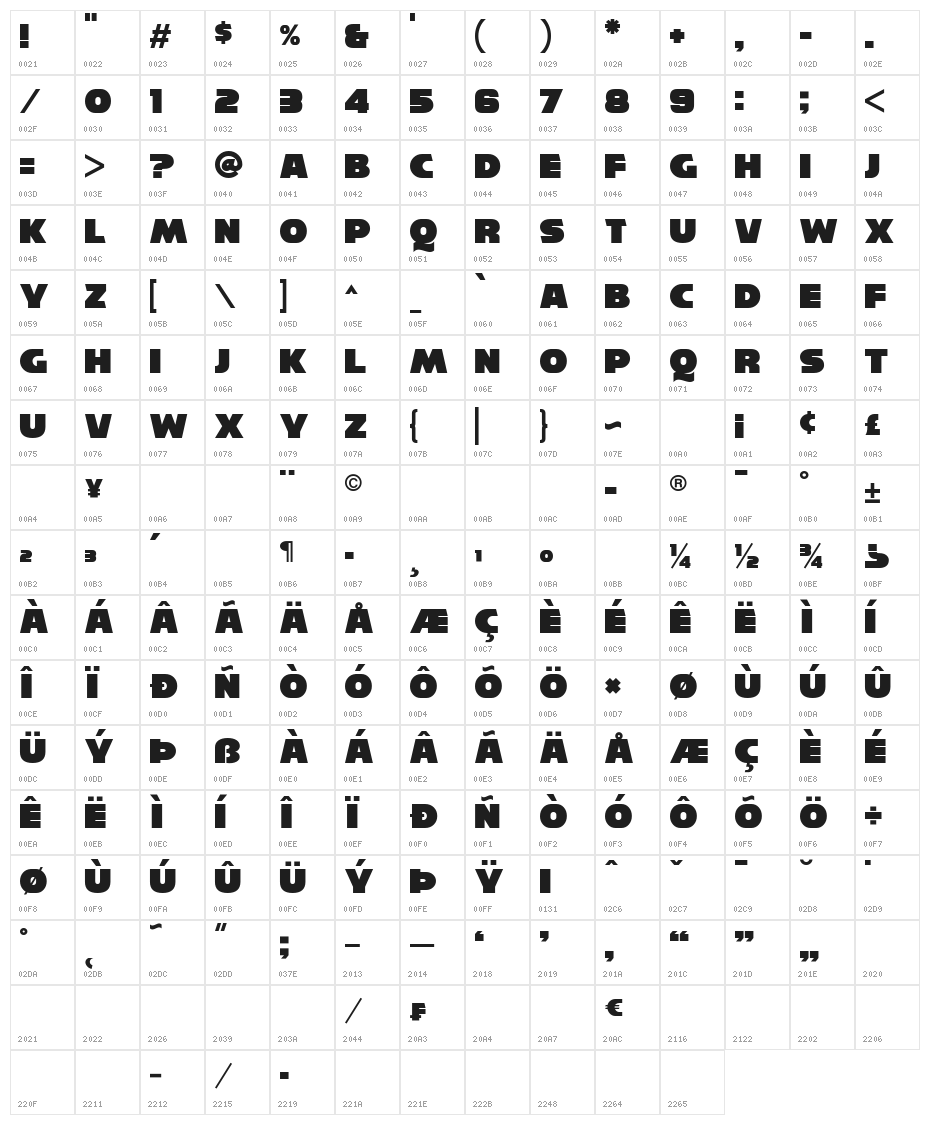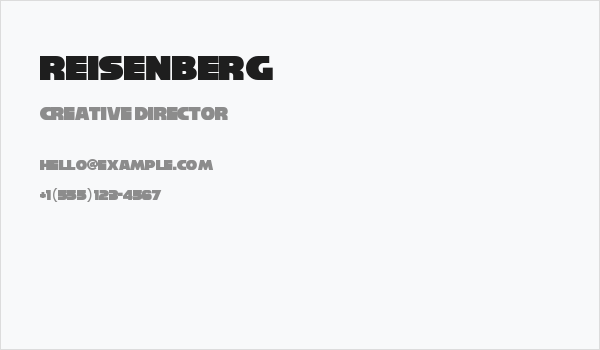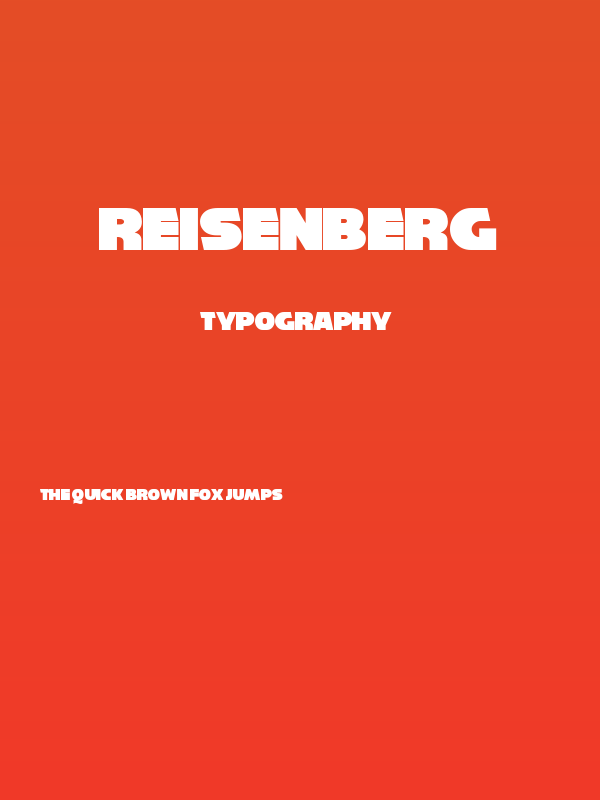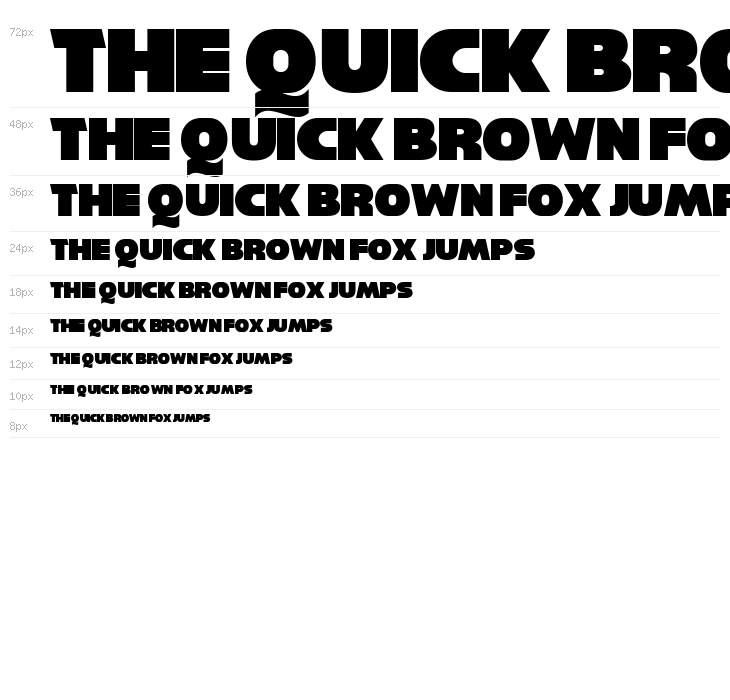
Reisenberg Font
Reisenberg Description
This bold and impactful font features strong, geometric shapes with a distinctly modern flair. The characters are uniformly thick, creating a sense of stability and power. The uppercase letters are particularly striking, with a blocky appearance that commands attention. The numbers and special characters maintain this bold aesthetic, ensuring consistency across all uses. The font's design is clean and straightforward, making it highly legible even at smaller sizes. Its wide character spacing adds to its readability, while the lack of serifs gives it a contemporary edge.